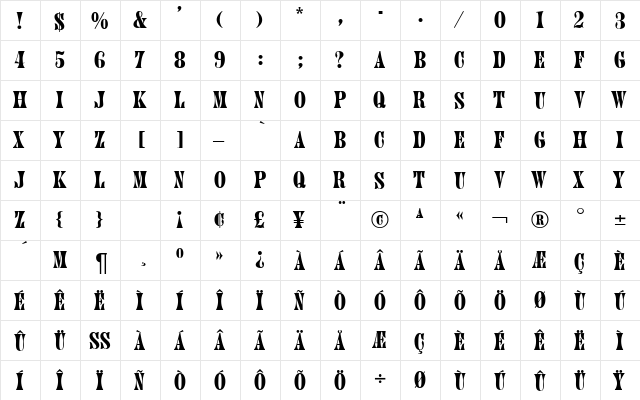
JuniorDB Normal Font Preview
JuniorDB Normal
Design Context for JuniorDB Typeface
JuniorDB takes a measured approach to typography — its balanced proportions and neutral character make it a reliable workhorse for both digital and print work.